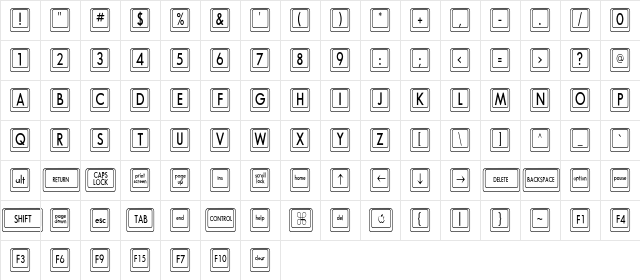
Keyboard KeysCn Condensed Regular
Design Context for Keyboard KeysCn Condensed Typeface
Keyboard KeysCn Condensed offers clean, dependable letterforms without strong stylistic allegiance, making it a practical choice for designers who need flexibility. The condensed width makes it efficient for tight spaces without sacrificing legibility.